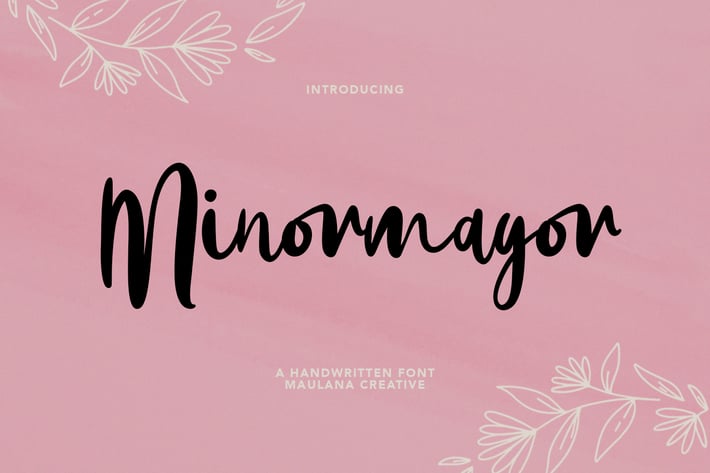
Minormayor Handwritten Font
Minormayor is a modern handwriting font inspired by social media advertising and titles. It has Opentype features Ligatures and alternate lowercase. Minormayor support multilingual more than 100+ language. This font is good for logo design, Social media, Movie Titles, Books Titles, a short text even a long text letter and good for your secondary text font with sans or serif. Make a stunning work with Minormayor handwriting font.